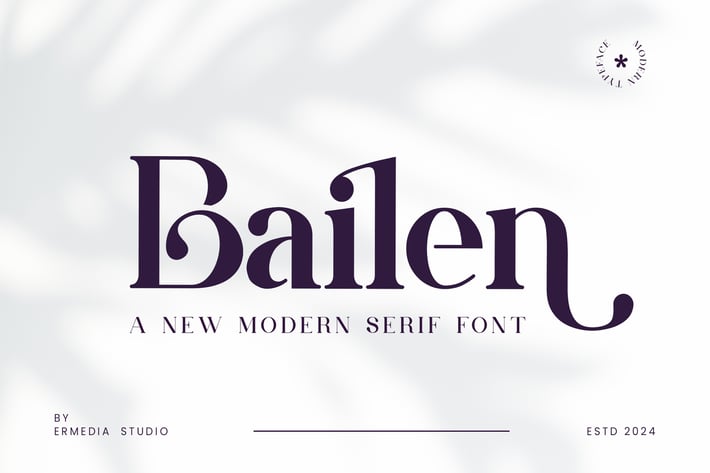
Bailen Serif Font
Introducing the Bailen Serif Font: is a balanced, smooth, elegant and stylish serif font. He has a beautiful character. Very suitable to be combined with invitation card designs, company logos, film titles, film names, business cards, book titles, brand names and various other designs. Bailen Serif is a smooth serif font that exudes sophistication. This charming and stylish font makes it the perfect partner for any project.